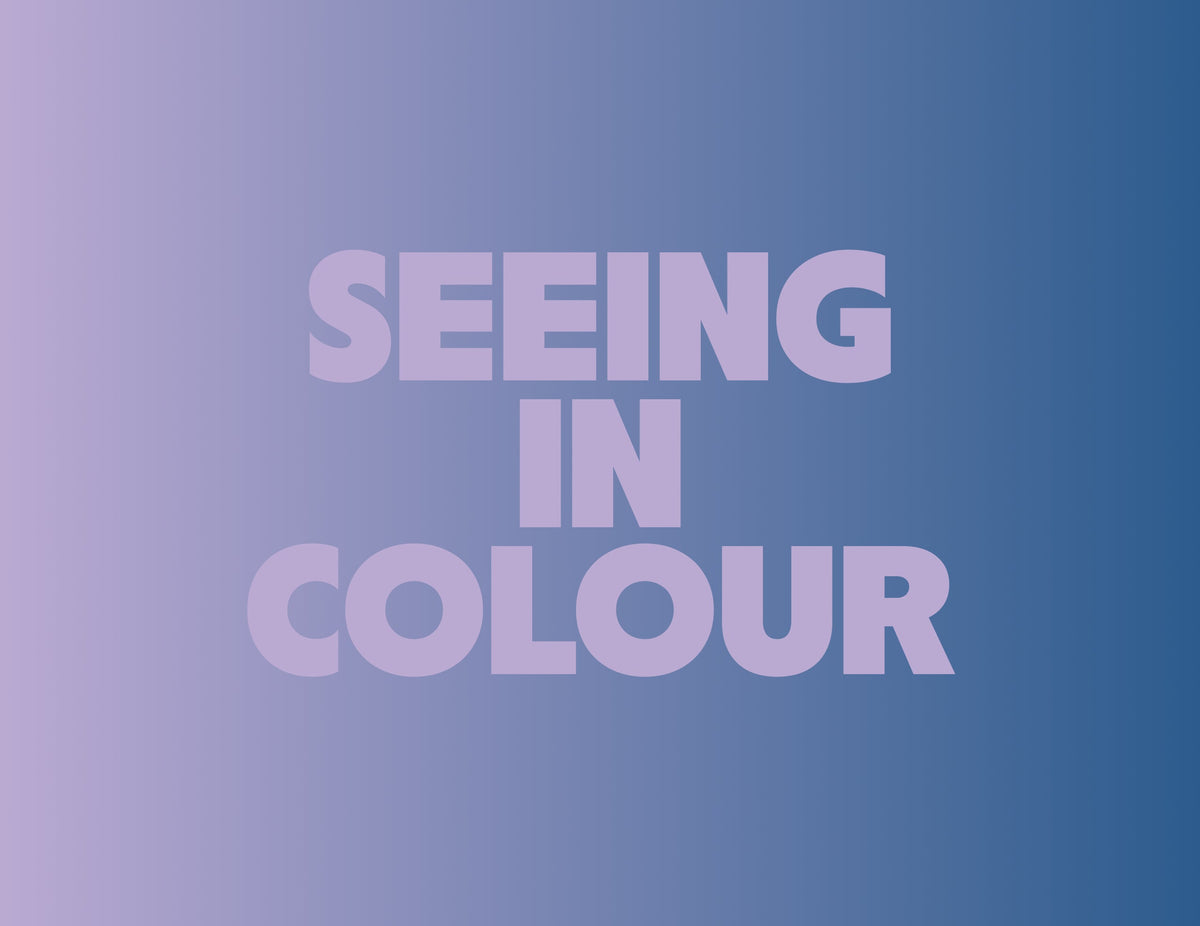
With colour on the mind and summer on our doorstep, we explored the broader impacts of colour in graphic and type design, its associations and how colour can be practically and conceptually used to your advantage.
As graphic or type designers, we often spend so much time designing purely in monochrome. Engrossed by a black and white world. Colour comes later. But it’s easy to forget how dramatically colour changes what you do, how something feels and how something is read. In the real world, on pixels or pages, typography rarely exists in grayscale. The moment colour enters the equation, everything shifts: legibility, mood, hierarchy, and even the way a typeface’s structure is perceived.
Colour has a direct impact on how easily text can be read. High contrast pairings – black on white, white on black – are the default for a reason. But once colour is introduced, legibility can become a balancing act. The wrong contrast can make something illegible or a paragraph exhausting. That said, even that basic contrast can be tough on the eyes. For those with dyslexia, schools often print black text on light coloured paper, such as baby blue or cream, to soften the contrast on one’s eyes – overall reducing the visual stress of reading words on a page.
Take yellow text on a white background. On paper, it’s nearly invisible. On a backlit screen, it might work, but only at a certain weight and size. Similarly, red and blue text together can cause optical vibration, making words appear to shift and blur (like you might see in an eye test). These are the kinds of interactions that designers have to test, not assume.
Type designers, meanwhile, have to consider how their letterforms hold up in different colour settings. A razor-thin grotesk might look ultra slick in black and completely disappear in pale pink. On the other end of the spectrum, a chunky display typeface might vibrate aggressively when placed in neon green. Testing typefaces in various colour scenarios can be very important, and should be treated in the same way type designers test the optical performance of their fonts at different sizes.
In graphic design, colour is a very useful tool for directing an audience – telling their eyes where to go. A headline in bold red is going to grab attention before a paragraph in gray. A subtle colour shift between a subhead and body text can create a visual break without needing additional styling. It can offer all the hierarchy necessary for a publication, even if everything is the same point size.
In typography, designers can also build colour into the type itself. Some variable fonts allow colour customisation, opening up new possibilities for expressive, multi-tonal letterforms. Digital-first typefaces are increasingly designed with colour interaction in mind, however, it’s far from a new invention. Plenty of old, originally letterpress, fonts used ‘shadows’ for greater contrast (plus they look very nice).
Colour and typography both carry meaning, but together, they can amplify it. No matter what, we carry culturally-informed, deep rooted chromatic associations, be it relating to gender, mood, price, history, stature… everything really. A classic, evergreen serif in deep navy conveys tradition and reliability. The same serif in hot pink feels unexpected. A geometric sans in red feels urgent and bold; in soft beige, it’s calm. It’s classy.
Different cultures and industries assign different meanings to colours, which means the same typeface can tell radically different stories depending on the palette. Luxury brands lean into black, gold, and neutrals to suggest timelessness and exclusivity. Tech companies love blues and purples for a forward-thinking, (ironically) trustworthy feel. High-energy, sporty brands go for oranges, reds, and bright greens.
As designers, the challenge (and the fun), is playing with those expectations. Perhaps subverting what an audience would expect, and using their associations in your favour.
For type foundries, this raises an interesting question in the role of a type specimen. Should they be neutral? Should it suggest how a typeface can behave in different colour settings? Many foundries opt for grayscale type specimens to let the letterforms speak for themselves. Others embrace colour as part of the showcase, highlighting the typeface’s concept and character.
Colour and typography are inseparable. Even monochrome is a colour choice. Whether designing a typeface or working with one, it’s not enough to think about letterforms in isolation because they, in fact, never do. Consider type through the lens of form, contrast, communication and colour.